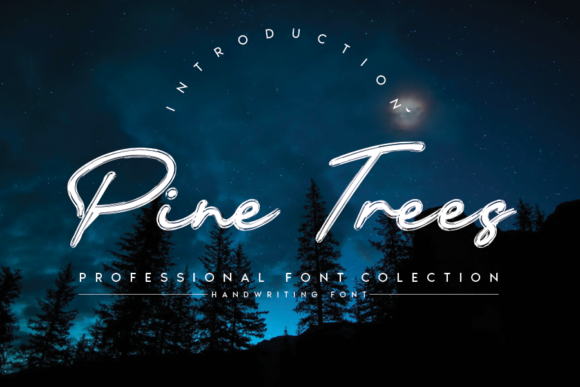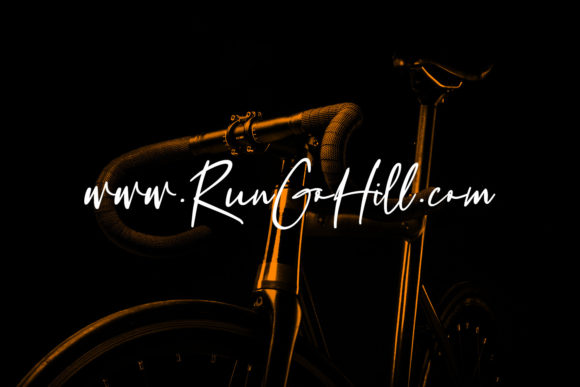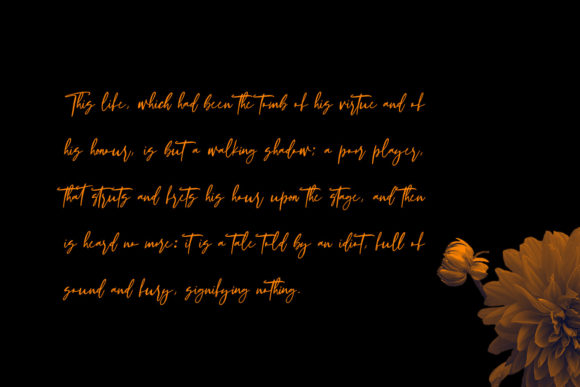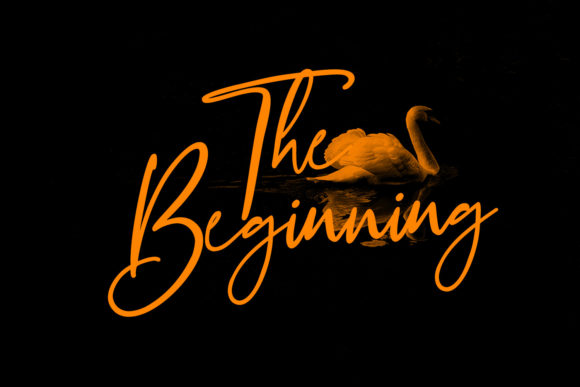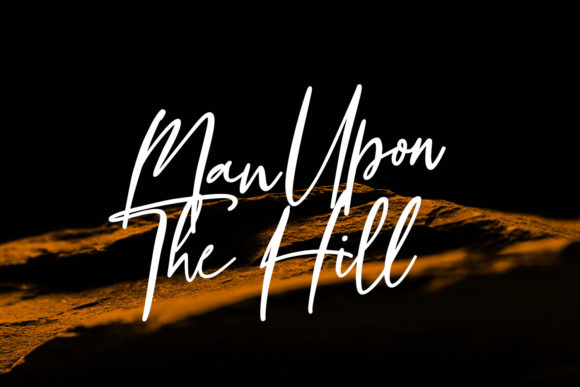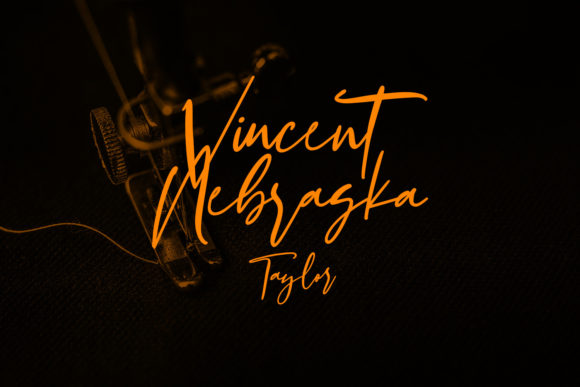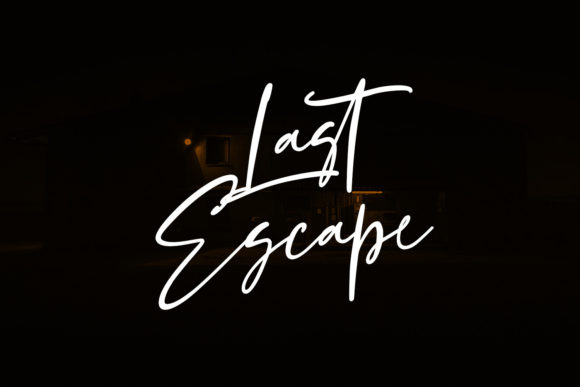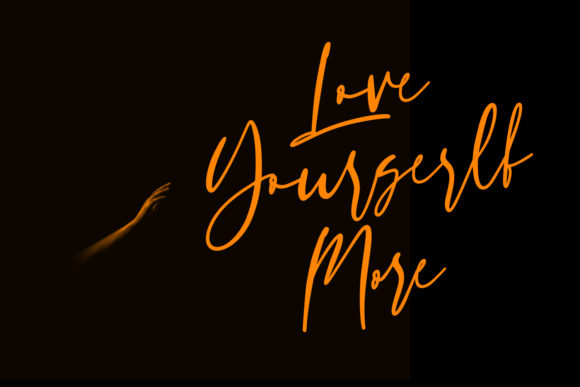
Hillstatic Script Font
About Hillstatic Script Font
Hillstatic Script is a relaxed and stylish script font. It is defined by smooth curves and is perfect for fashion branding or editorial designs. Add it confidently to your projects, and you will love the results.